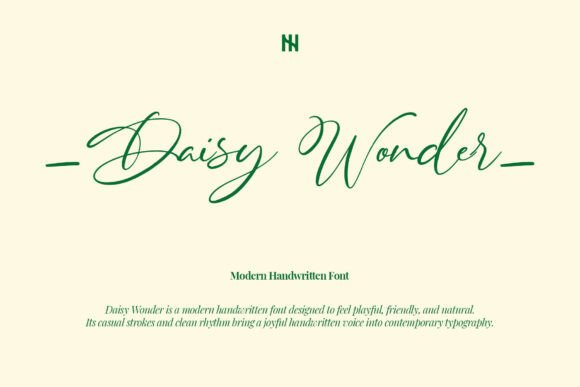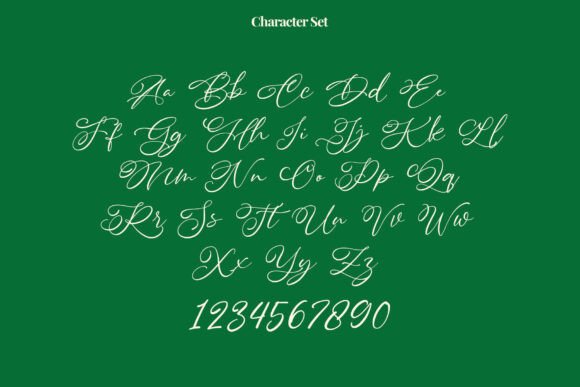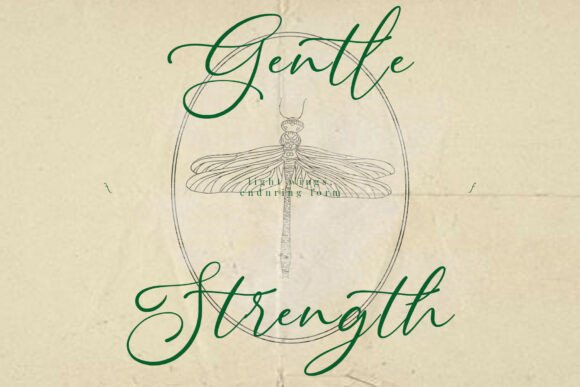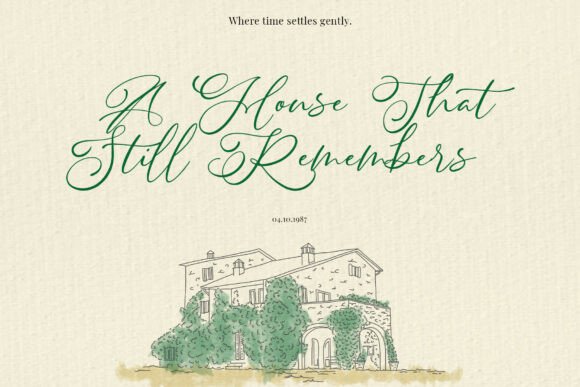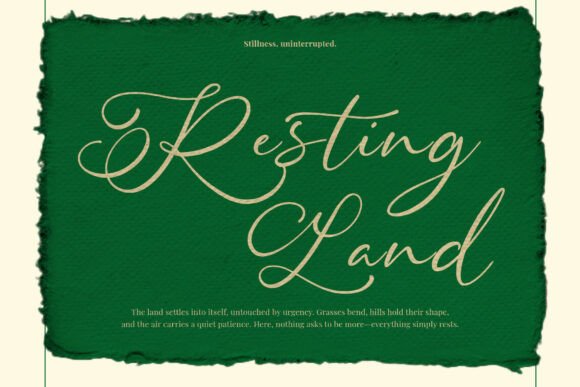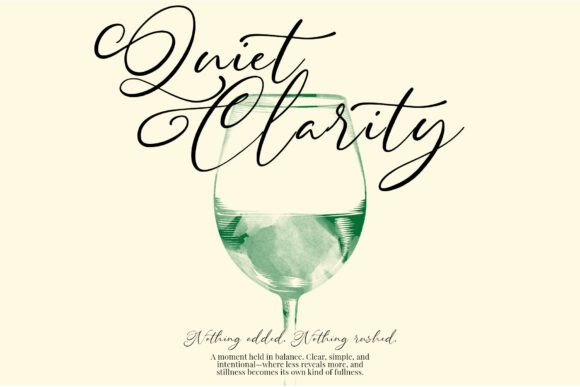
Daisy Wonder Font: Elevate Your Designs with a Touch of Elegance and Playfulness
In the world of typography, few fonts manage to strike a balance between elegance and playfulness as effortlessly as Daisy Wonder. This modern handwritten script font is a masterpiece of design, capturing the essence of a playful yet graceful personality through its flowing strokes and expressive curves. Whether you’re a designer looking for the perfect font for your next project or a crafter seeking to add a personal touch to your creations, Daisy Wonder is sure to impress.
The Essence of Daisy Wonder
Daisy Wonder is more than just a font; it’s a design element that brings a sense of natural elegance and effortless charm to any project. Its design is rooted in the concept of creating a smooth, flowing script that feels both personal and refined. Each letterform is crafted to contribute to a lively, yet graceful rhythm, making it perfect for a wide range of applications, from branding and invitations to packaging, quotes, editorials, and creative projects.
Key Features of Daisy Wonder
- Modern Handwritten Script: Daisy Wonder embodies the beauty of handwritten typography with a modern twist, making it stand out in the digital age.
- Flowing Strokes and Expressive Curves: The font’s design focuses on smooth transitions and dynamic letterforms that give it a lively and charming voice.
- Natural and Effortless Feel: The essence of Daisy Wonder lies in its ability to feel natural and unforced, providing a warm and friendly appearance to any text.
- Blends Soft Elegance with a Contemporary Touch: It successfully merges traditional elegance with modern sensibilities, making it versatile for various design needs.
- Perfect for Various Projects: From professional branding to personal invitations, and from packaging to creative projects, Daisy Wonder adds a touch of warmth and character.
Applications of Daisy Wonder
The versatility of Daisy Wonder makes it an excellent choice for a multitude of design projects. Here are some of the areas where this font truly shines:
- Branding: Use Daisy Wonder to give your brand a personal and approachable feel. Its unique charm can help your brand stand out in a crowded market.
- Invitations: Whether it’s a wedding invitation, a birthday party, or any other celebration, Daisy Wonder adds a touch of elegance and warmth.
- Packaging: Elevate your product packaging with a font that communicates care, quality, and personality.
- Quotes and Editorials: Add a personal touch to your quotes, articles, and editorials with a font that feels both sophisticated and approachable.
- Creative Projects: For bloggers, artists, and crafters, Daisy Wonder offers a way to infuse personality into blog posts, artwork, and handmade products.
Why Choose Daisy Wonder?
In a sea of fonts, Daisy Wonder stands out for its ability to convey a sense of warmth, friendliness, and character. Here are a few reasons why designers and crafters are gravitating towards this beautiful script:
- Unique Personality: Daisy Wonder has a distinct personality that can help any project stand out.
- Versatility: Its adaptability makes it suitable for a wide range of projects, from digital to print.
- Ease of Use: Designed with the user in mind, Daisy Wonder is easy to incorporate into any design workflow.
- Timeless Appeal: While modern, Daisy Wonder has a timeless quality that won’t go out of style.
| Author | Inviline |
Daisy Wonder is more than just a font; it’s a design companion that can elevate your projects with its playful yet graceful personality. Its flowing strokes, expressive curves, and effortless charm make it the perfect choice for designers and crafters looking to add a personal touch to their work. Whether you’re aiming for elegance, playfulness, or a mix of both, Daisy Wonder is sure to deliver. Explore the possibilities of Daisy Wonder and discover how it can transform your designs into something truly special.